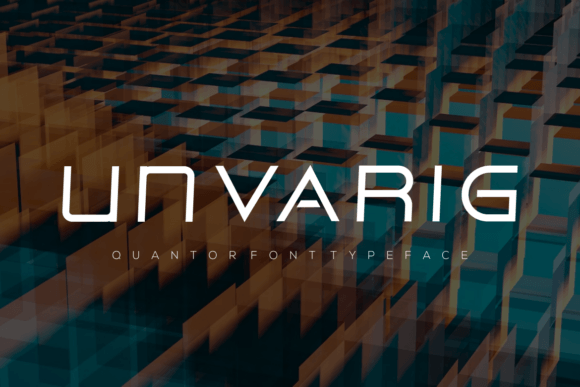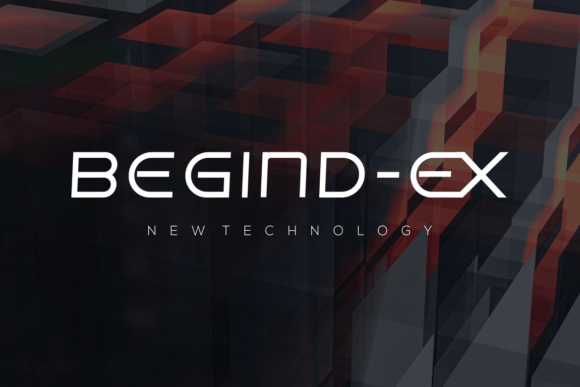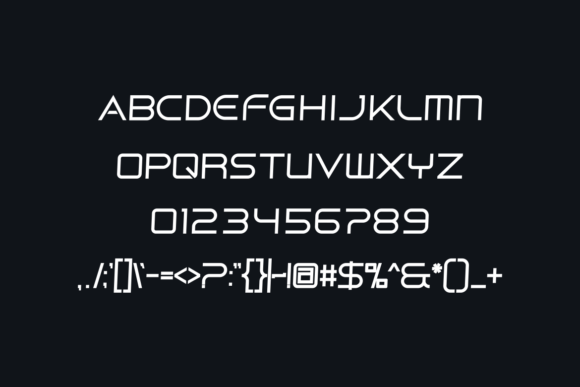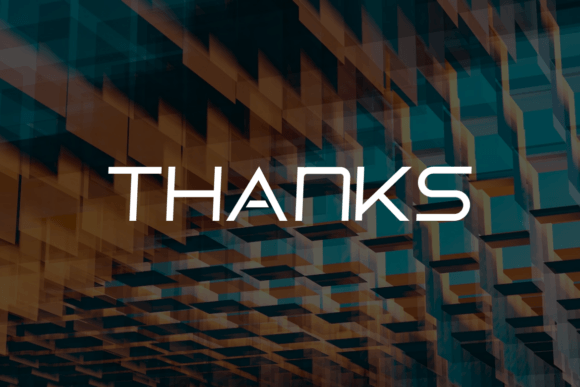
Introduction to Quantor Font
Imagine you’re working on a high-stakes creative project, and you need a font that perfectly captures the essence of speed, innovation, and cutting-edge style. You’re scrolling through design resources, searching for the perfect fit, when suddenly, you stumble upon the Quantor Font – a game-changing sans serif font that’s about to revolutionize your design.
As a designer, you know how crucial it is to have a versatile font that can elevate your work and make it stand out from the crowd. The Quantor Font is designed to be the ultimate design resource for any creative project, from product logos to magazine covers, and everything in between. With its sleek, modern aesthetic, this high-quality font is perfect for designers who want to add a touch of futuristic flair to their work.
Key Features of Quantor Font
- Unique and stylish font with a transparent background, perfect for adding a touch of elegance to your designs.
- Designed to be versatile and adaptable, making it suitable for a wide range of design applications, from logos to typography.
- Features a modern and sleek aesthetic, making it an excellent choice for designers seeking a fresh and creative look.
Honest Review: Quantor Font
As a designer, I’m always on the lookout for high-quality design resources to elevate my creative projects. Recently, I came across the Quantor Font, and I must say it’s a great addition to my design toolkit.
What works well is its versatility. The Quantor Font comes in multiple styles, making it perfect for a wide range of design applications. Its clean and modern design aesthetic makes it ideal for anything from logos to web design. The font also has a transparent background option, which is a huge plus for designers who want to achieve a seamless look in their designs.
Here are some of the Quantor Font’s key features:
- ✨ High-quality design that’s perfect for logos, web design, and more
- ✨ Multiple styles to choose from, including bold and italic
- ✨ Transparent background option for seamless design
However, I did encounter a few limitations. The font doesn’t come with a wide range of language support, which might be a concern for designers working on projects that require multiple languages. Additionally, the font’s download size is a bit large, which might be a consideration for designers with slower internet connections.
Overall, I’m impressed with the Quantor Font. Its high-quality design, versatility, and free download make it an excellent choice for designers looking to elevate their creative projects. While it may have a few limitations, I believe it’s still a valuable addition to any designer’s toolkit.
Quantor Font is perfect for a variety of creative projects, including:
– Blog posts and articles
– Business cards and flyers
– Infographics and presentations
Getting the Most Out of Quantor Font
Here are some tips for getting the most out of this versatile font:
– Experiment with different text styles and effects
– Use the font in combination with other design elements
– Take advantage of the font’s transparent background to create visually appealing designs